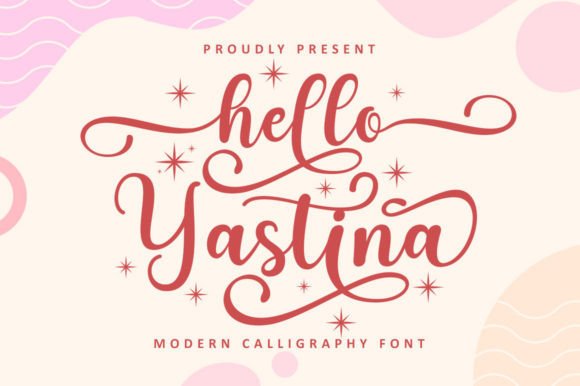
Journey into the world of elegance and charm with Hello Yustina Script Font, a captivating creation from madjack.font. This exquisite script font, meticulously crafted with freestyle strokes, adds a touch of sophistication to any project you envision.
Hello Yustina Script Font is the ultimate choice for those seeking a font that exudes grace and beauty. Its flowing curves and delicate details bring a sense of timeless elegance to any design. Whether you're creating wedding invitations, logos, or heartfelt letters, this font will elevate your words and leave a lasting impression.
With Hello Yustina Script Font, your designs will radiate a sense of romance and charm. Its versatility knows no bounds, making it perfect for a multitude of projects. Enchant your audience with its allure in t-shirts, letterheads, signage, labels, news, posters, and badges.
Unleash your creativity and let Hello Yustina Script Font guide you towards captivating designs. Its charm will transform your projects into works of art, evoking emotions and leaving a lasting impact on your audience. Embrace the beauty of this font and watch your designs flourish with elegance.
Indulge in the allure of Hello Yustina Script Font and embark on a creative journey like never before. Its captivating style will leave you spellbound, inspiring you to create designs that resonate with grace and sophistication. Experience the magic of this font and witness the transformation of your projects into masterpieces.